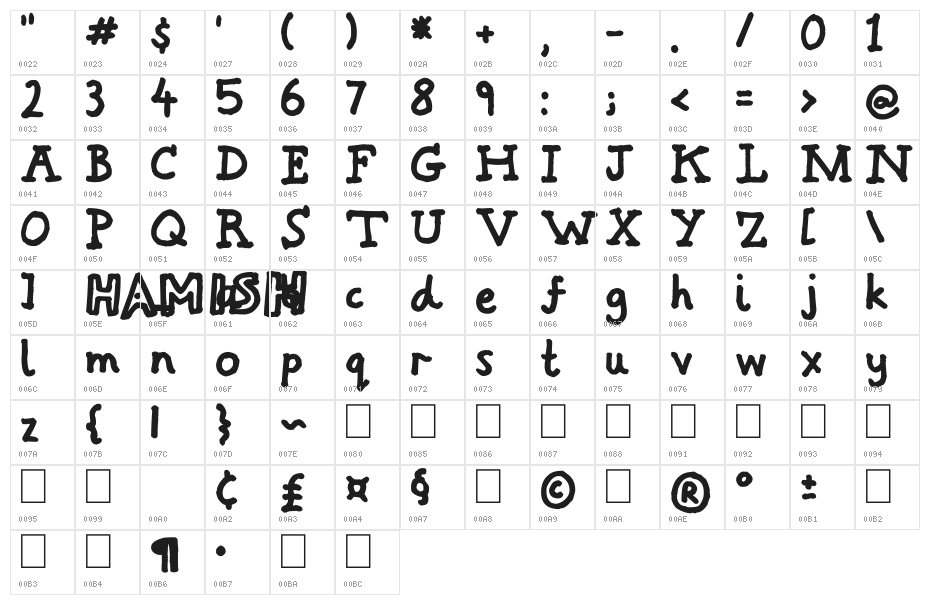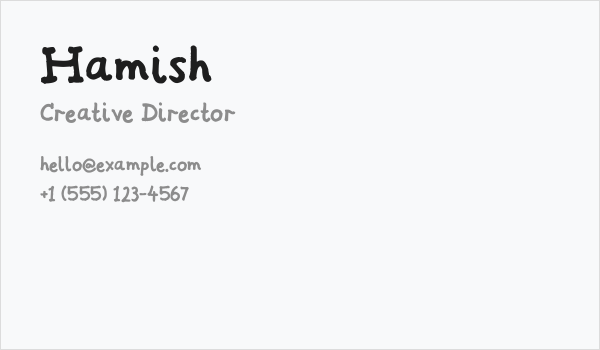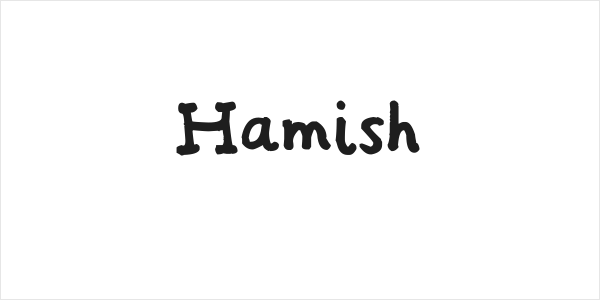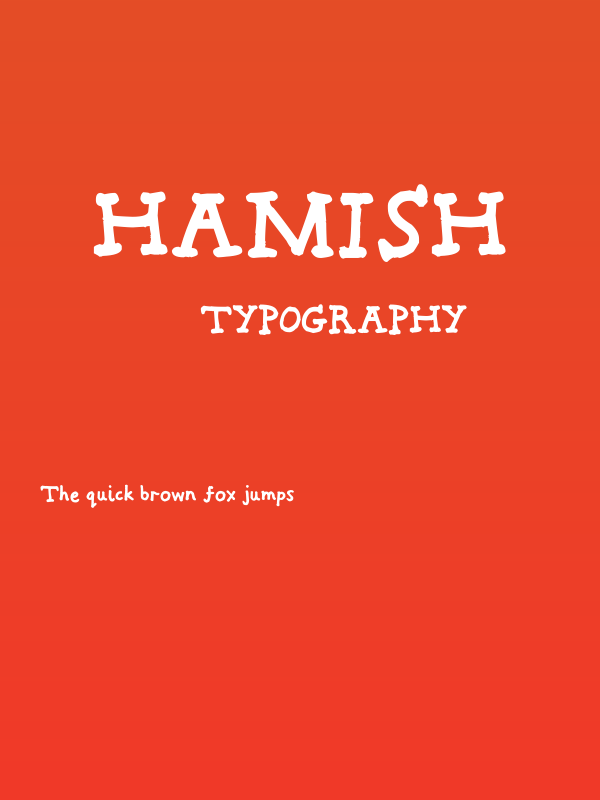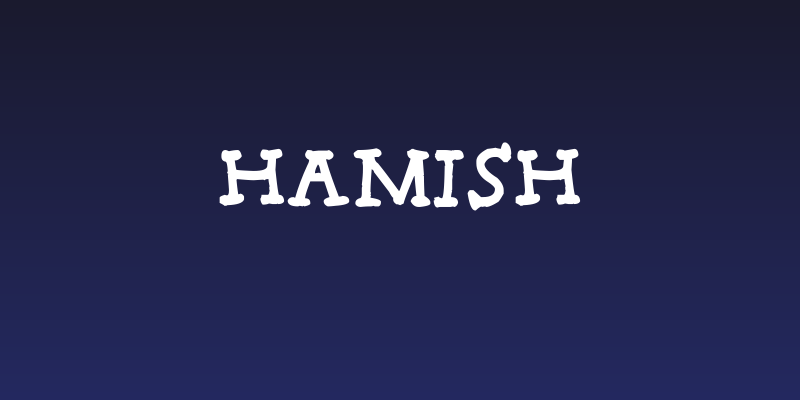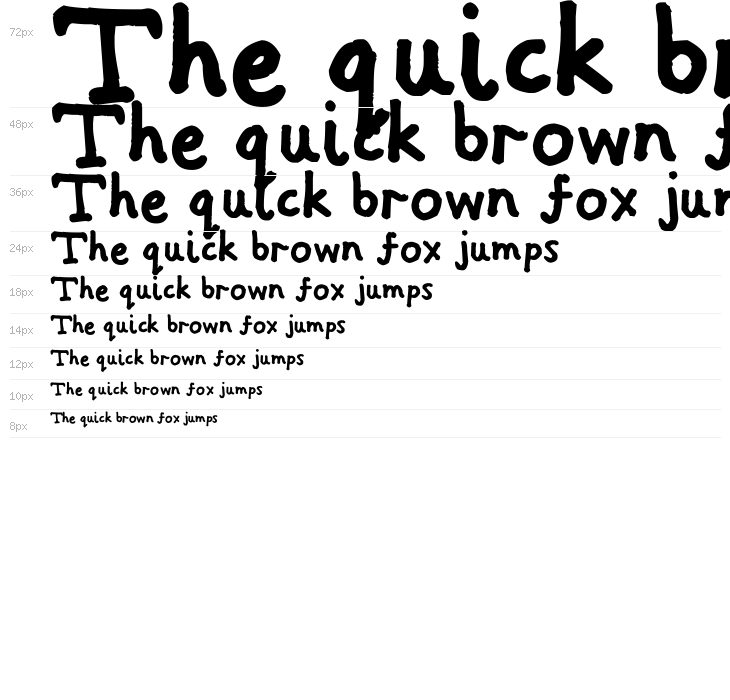
Hamish Font
Hamish Description
This font features a playful and informal handwritten style, characterized by its bold and slightly irregular strokes. The letters have a whimsical and friendly appearance, with rounded edges and a casual flow that mimics natural handwriting. The uppercase and lowercase letters maintain a consistent style, while the numerals and special characters complement the overall aesthetic. This font's unique charm makes it suitable for projects that require a personal touch, such as invitations, greeting cards, and creative branding.
| Use Case | Headlines, Logos, Informal text |
| Proposed Projects | Ideal for invitations, greeting cards, creative branding, and informal designs. |